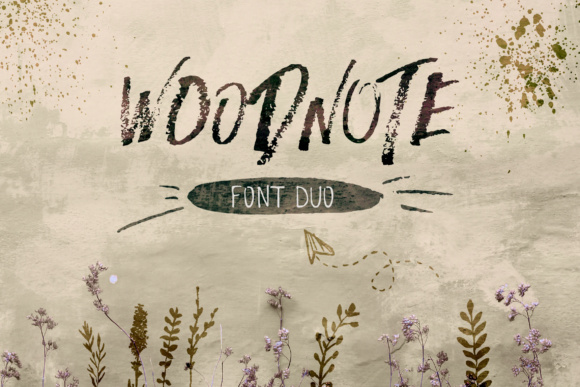
Woodnote Font
Woodnote Font: Unleash Your Creativity with a Touch of Charcoal Elegance
Journey into the world of Woodnote Font, a captivating script font family that exudes energy and style. Its charcoal hue adds a touch of sophistication to your designs, making it the perfect choice for those seeking a unique and memorable font.
Woodnote Font comes with a light version, providing versatility for a wide range of projects. Whether you're designing invitations, social media graphics, or eye-catching logos, Woodnote adapts seamlessly to your creative vision.
But what truly sets Woodnote apart is its extensive collection of over 300 hand-drawn vector doodles. These playful elements inject a touch of whimsy and organic flair into your designs, allowing you to create truly captivating visuals.
With Woodnote Font, you can effortlessly elevate your projects to new heights. Its rough brushed texture adds a sense of authenticity and personality, making your designs stand out from the crowd.
Add Woodnote Font to your collection today and embark on a creative adventure like no other. Let your imagination soar as you bring your designs to life with this remarkable font family and its treasure trove of hand-drawn doodles.